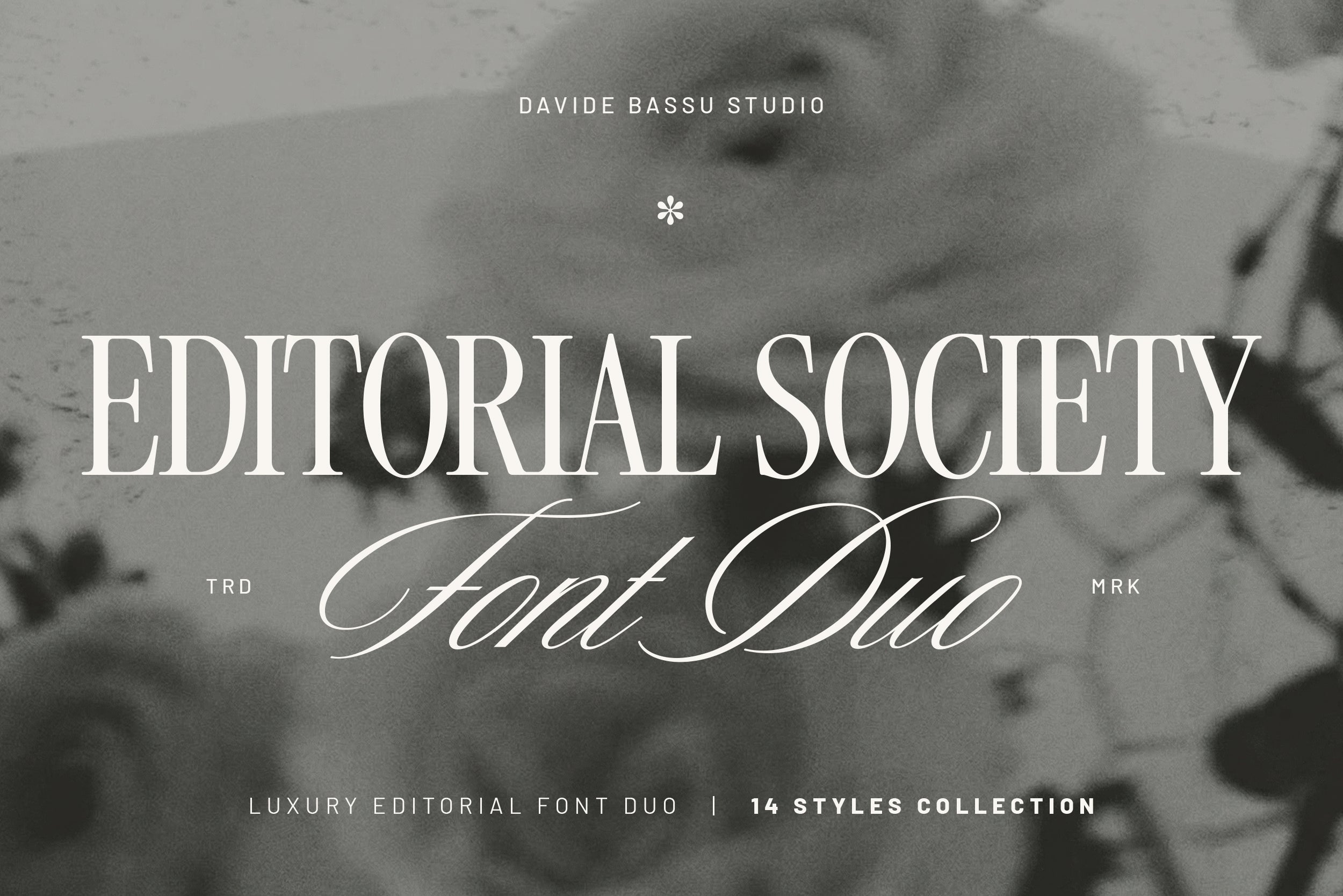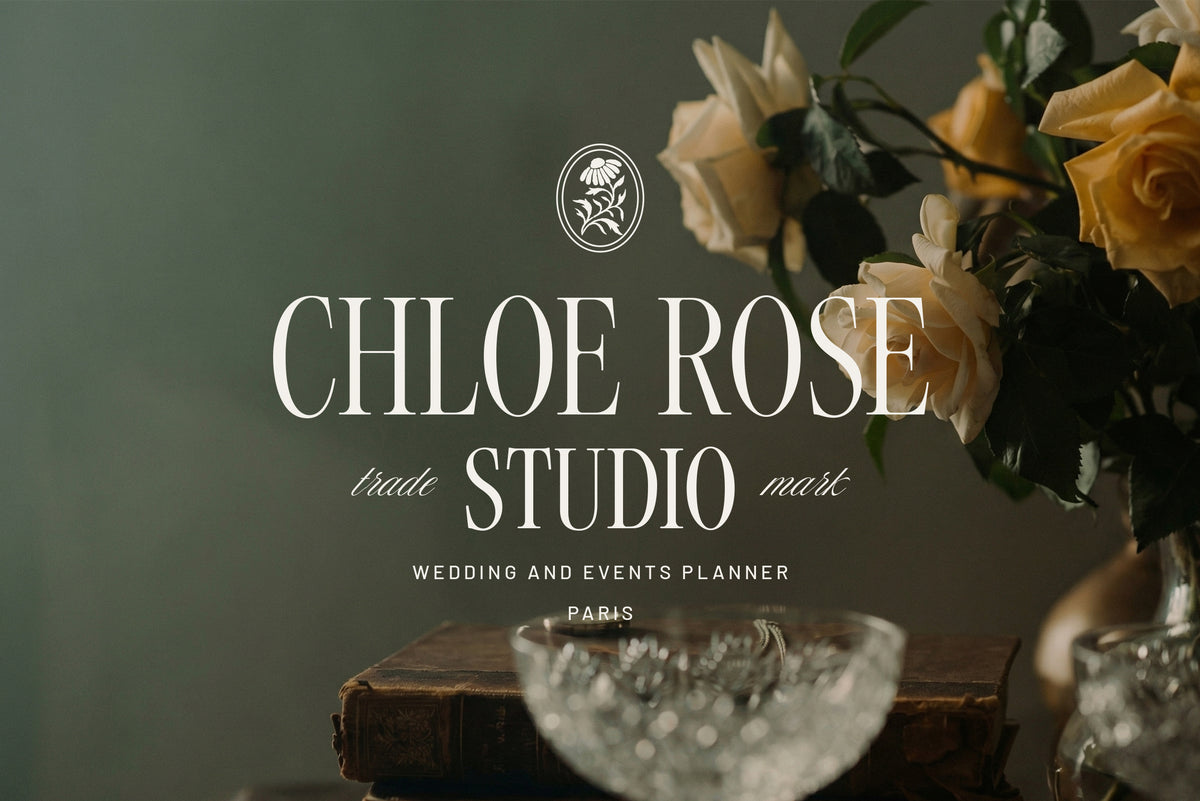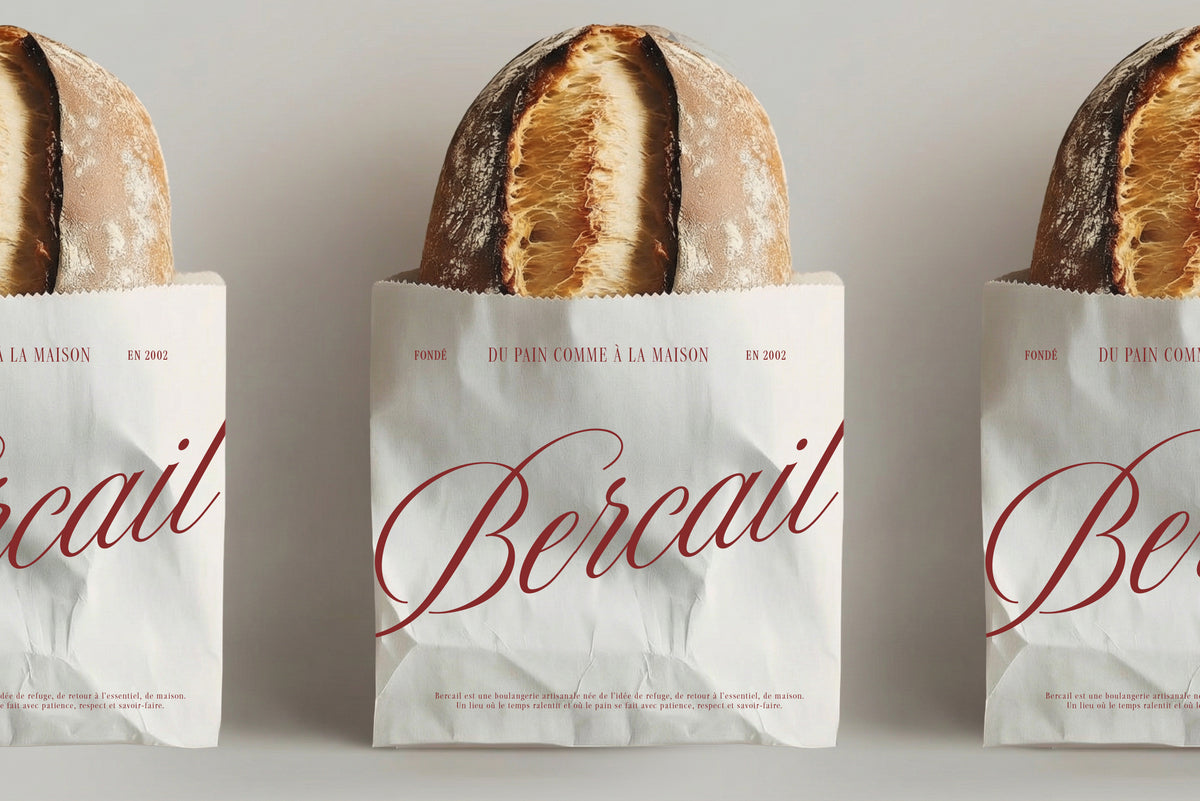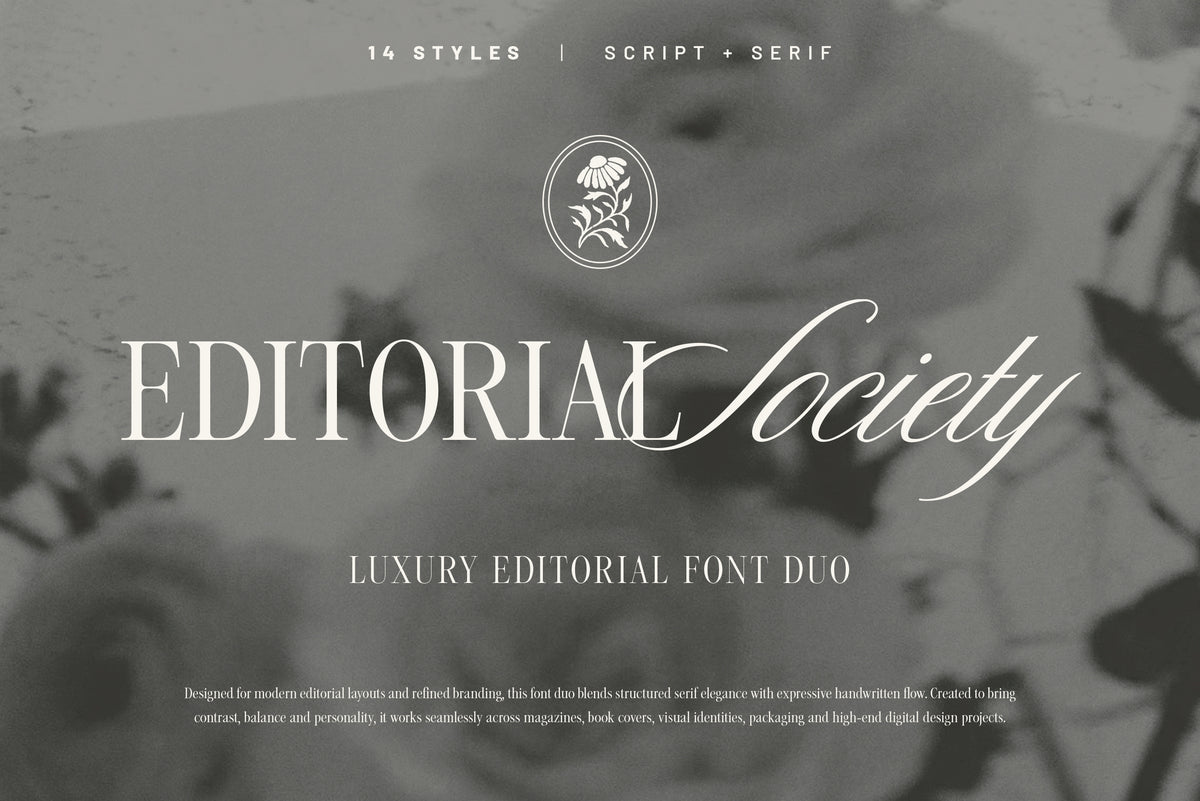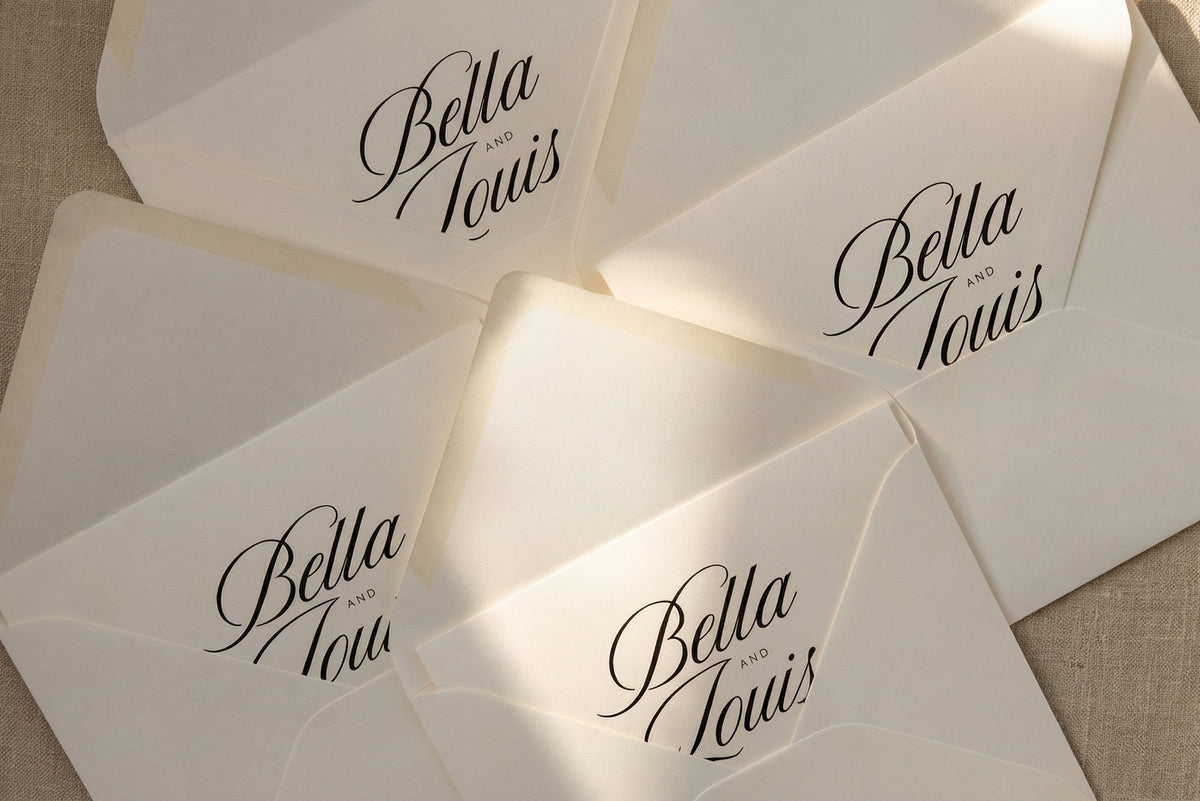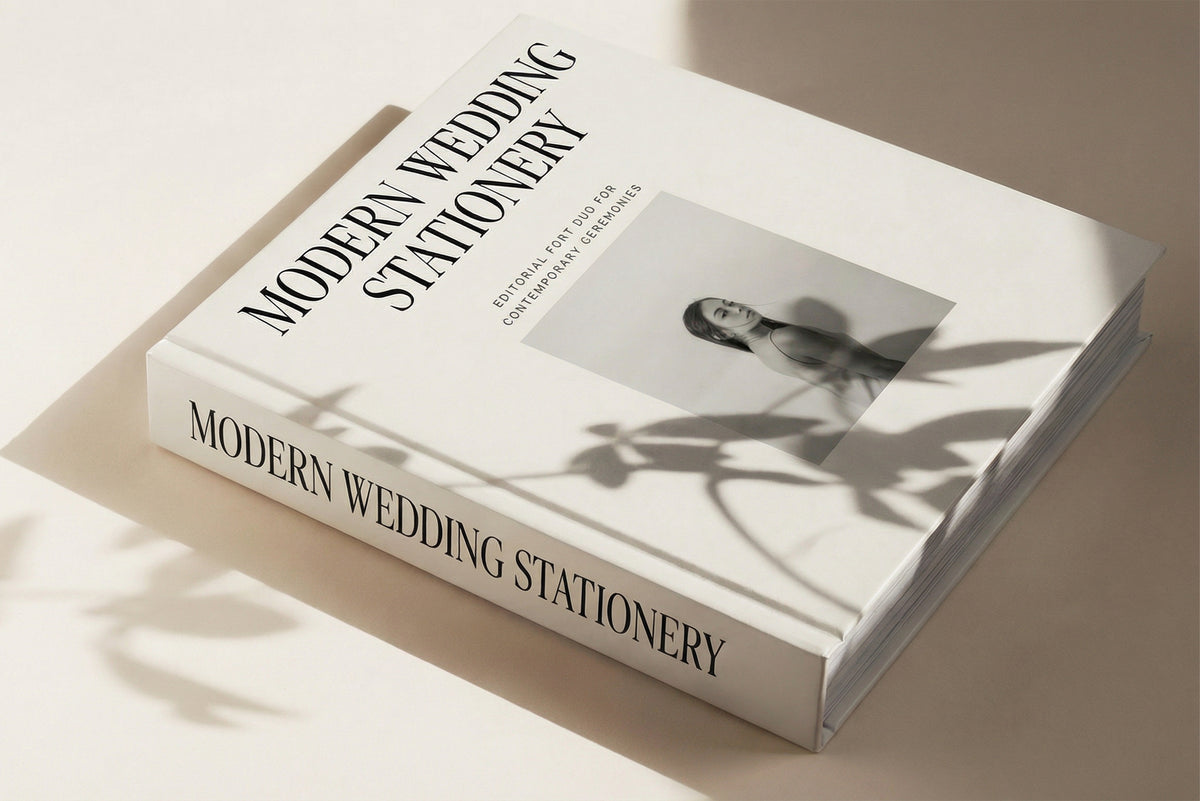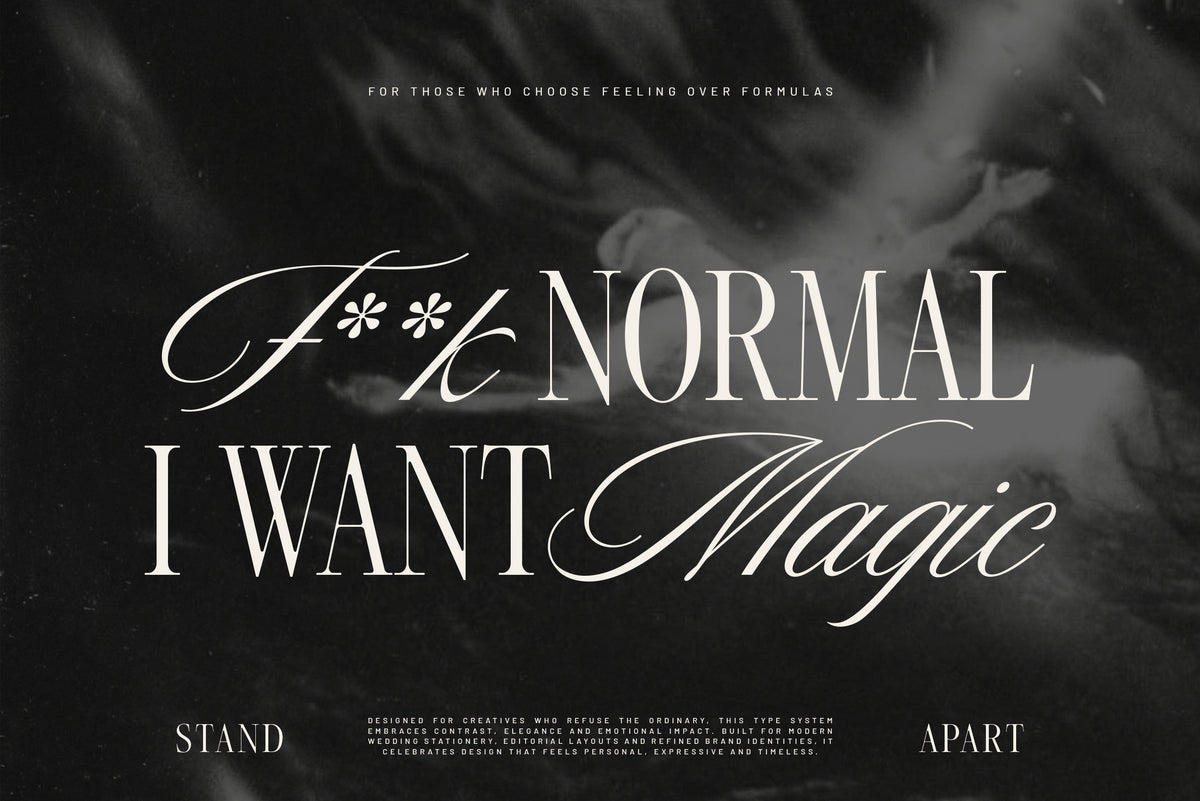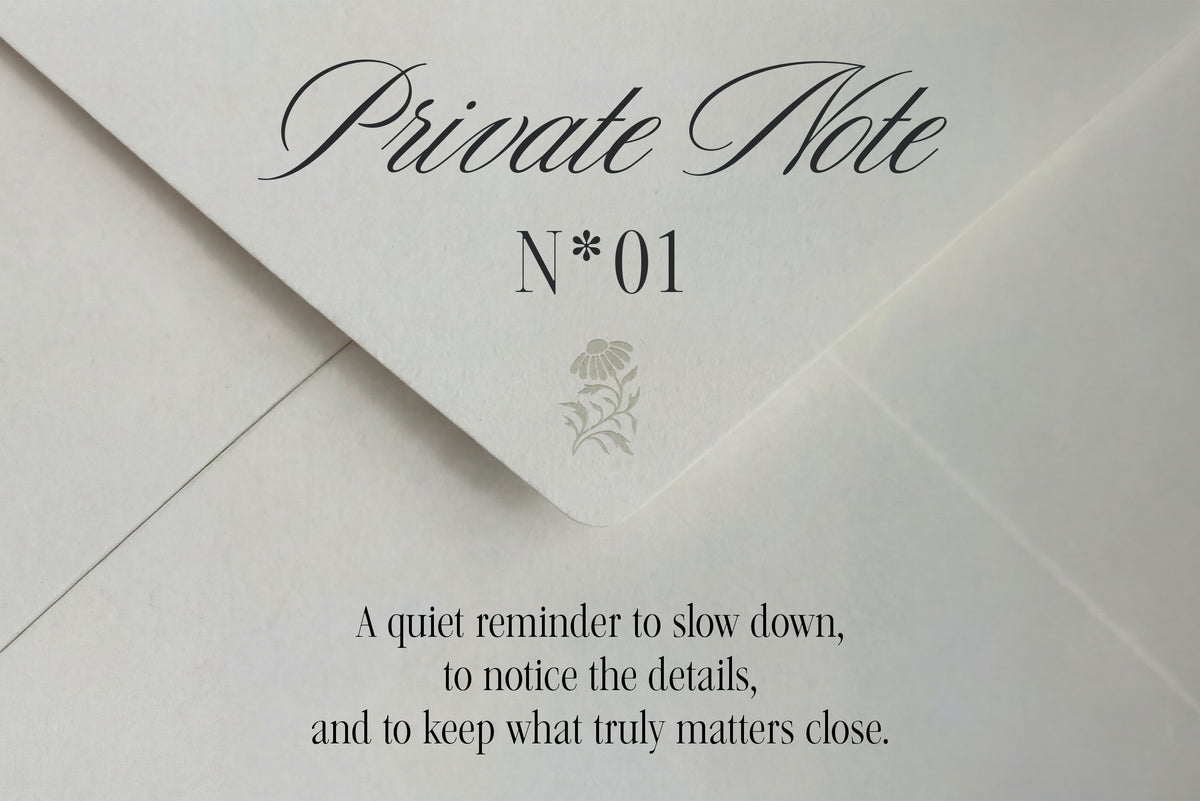
Editorial Society - Luxury Editorial Font Duo
Editorial Society is a refined luxury font duo created for high-end editorial work, fashion branding and sophisticated visual identities.
The collection pairs a timeless serif with a handwritten script, designed to complement each other naturally. The result is a versatile and elegant type system, well suited for modern editorial layouts and refined branding projects.
The serif font is available in two proportions — Regular and Tall, each including Light, Regular and Bold weights, making it ideal for headlines, layouts and longer editorial compositions where clarity and structure matter.
The script font comes in two distinct styles — Script and Lush. Script is clean and refined, while Lush introduces more expressive strokes and decorative movement. Each style includes Thin, Bold, Thin Oblique and Bold Oblique, allowing a smooth transition from subtle details to confident statement lettering.
To enhance fluidity and natural connections, the script font includes 25 handcrafted ligatures and alternates, designed to add character and elegance without overpowering the composition.
Editorial Society is well suited for editorial design, fashion and beauty branding, luxury packaging, wedding stationery, logos, refined visual identities and curated social media content.